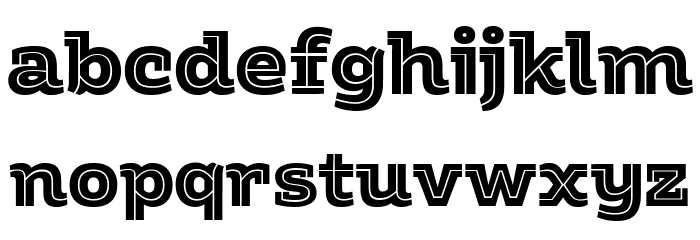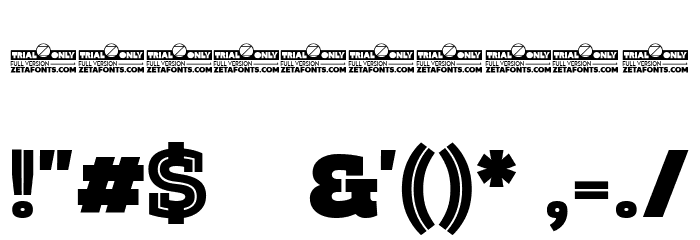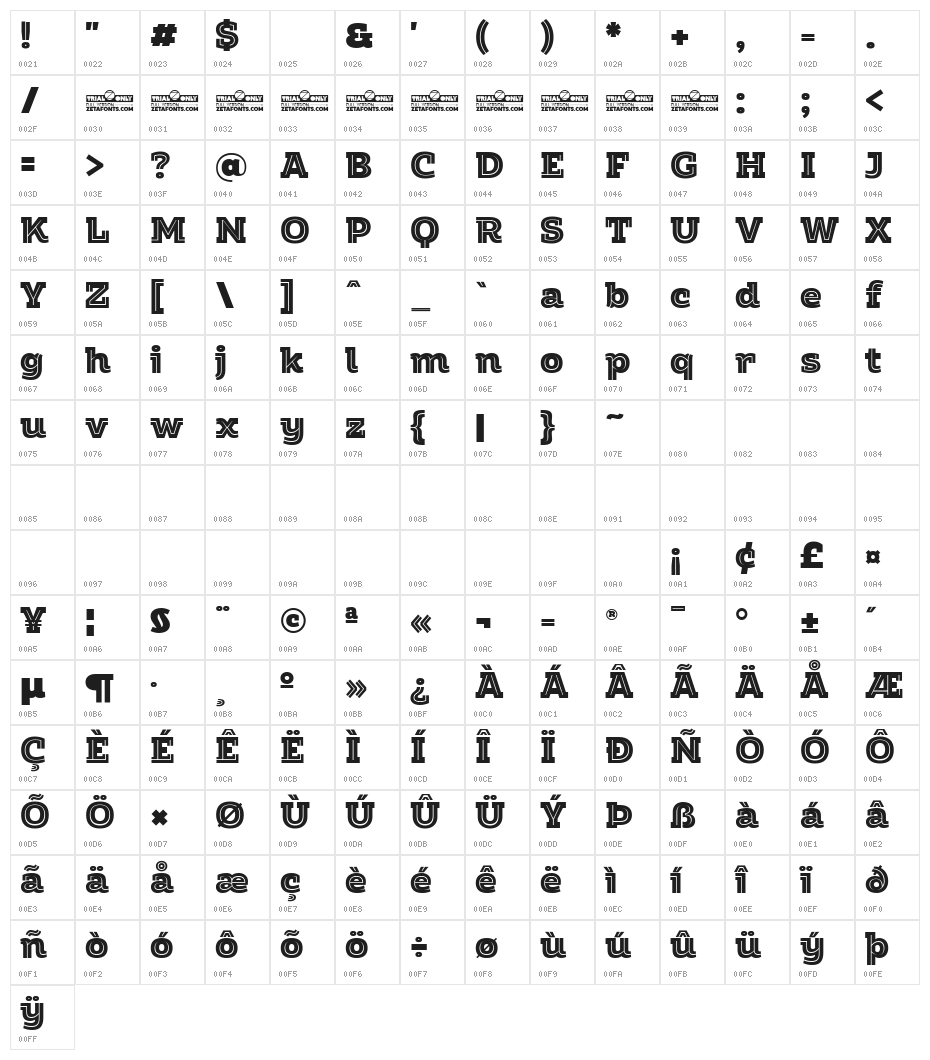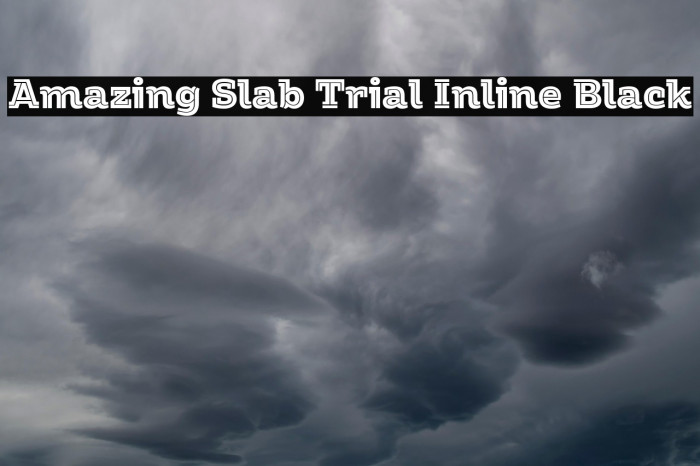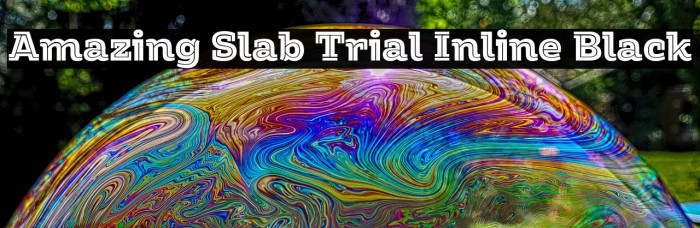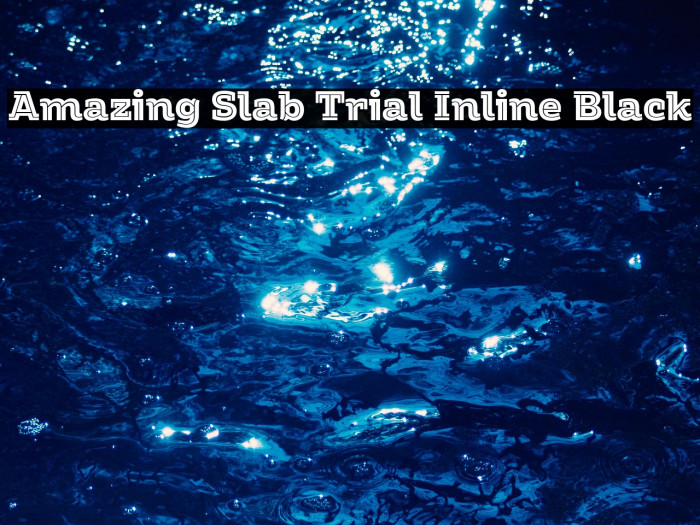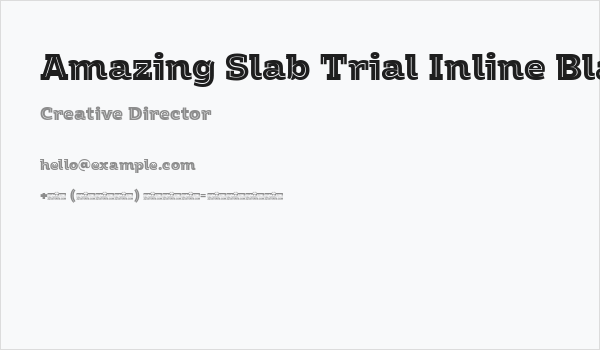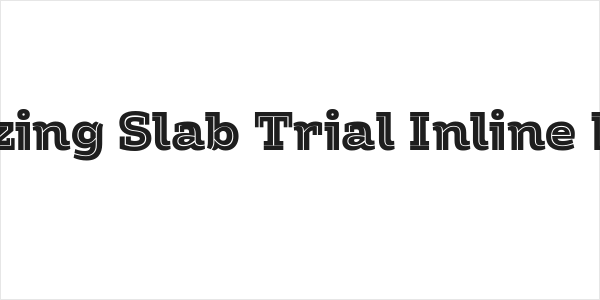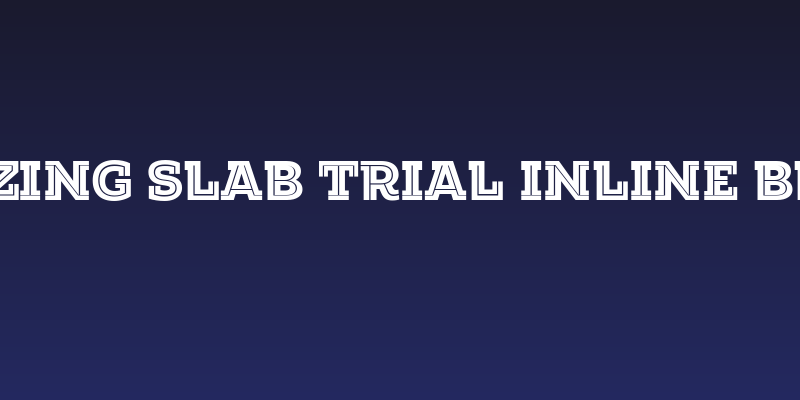
Amazing Slab Trial Inline Black Font
This font features a bold, slab serif style with a distinctive inline design that adds depth and dimension to each character. The uppercase letters are robust and commanding, while the lowercase letters maintain a consistent weight and style, ensuring readability. The inline detail provides a modern twist to the traditional slab serif, making it suitable for eye-catching headlines and titles. The numerals and special characters are designed to match the boldness and style of the alphabet, ensuring a cohesive look across all text elements.
A bold slab serif font with a modern inline design.
- Font: Amazing Slab Trial Inline Black
- Proposed Projects: Ideal for branding, posters, and headlines where a strong, modern presence is needed.